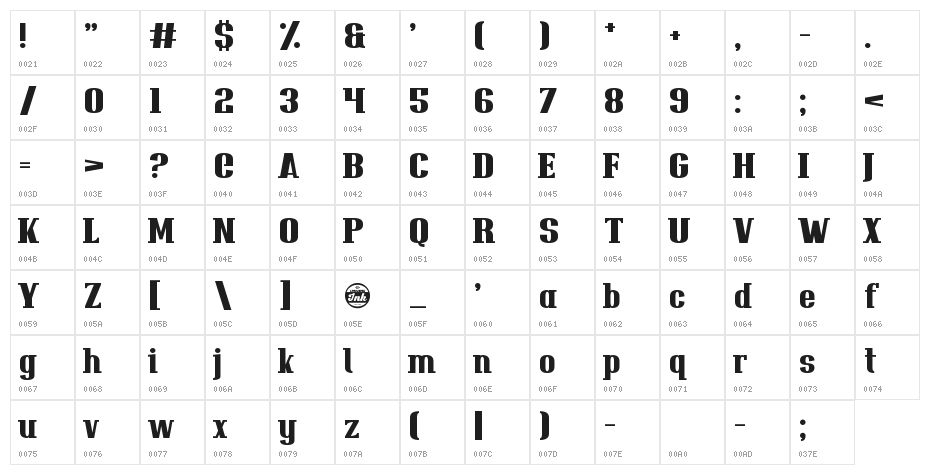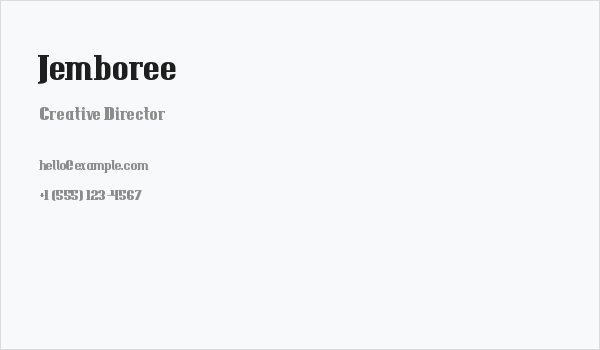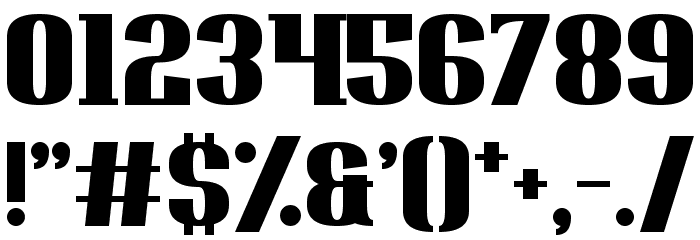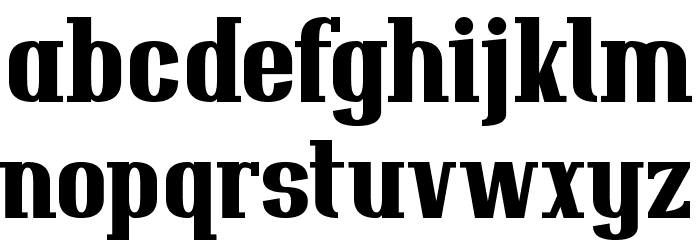
Jemboree Font
Jemboree Description
This font showcases a bold and robust style with thick strokes and a strong presence. The characters are well-defined with a slight curvature that adds a touch of elegance to the overall design. The uppercase letters are particularly striking, with a commanding appearance that makes them ideal for headlines or titles. The lowercase letters maintain the boldness while offering a more approachable feel. Numbers are equally bold, ensuring they stand out in any context. Special characters are crafted with the same attention to detail, making them suitable for a variety of uses. The font's overall aesthetic is both modern and classic, making it versatile for numerous design projects.
| Proposed Projects | Ideal for headlines, posters, branding, and advertising materials. |